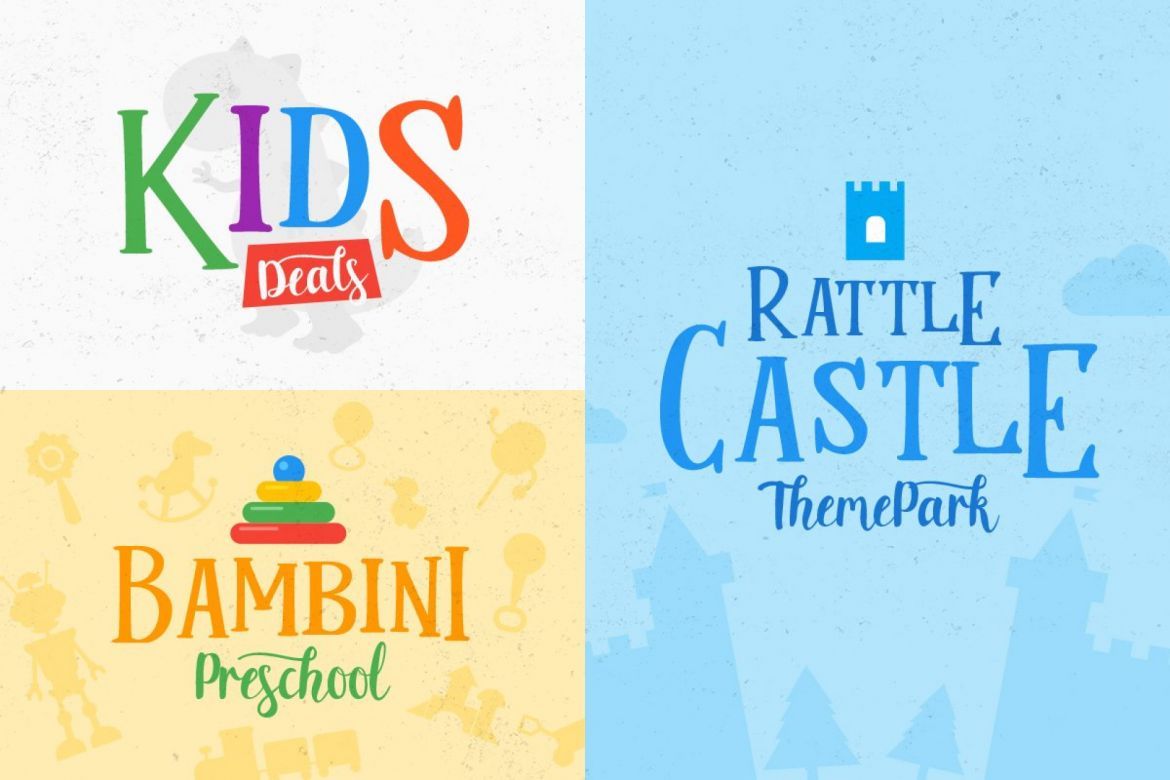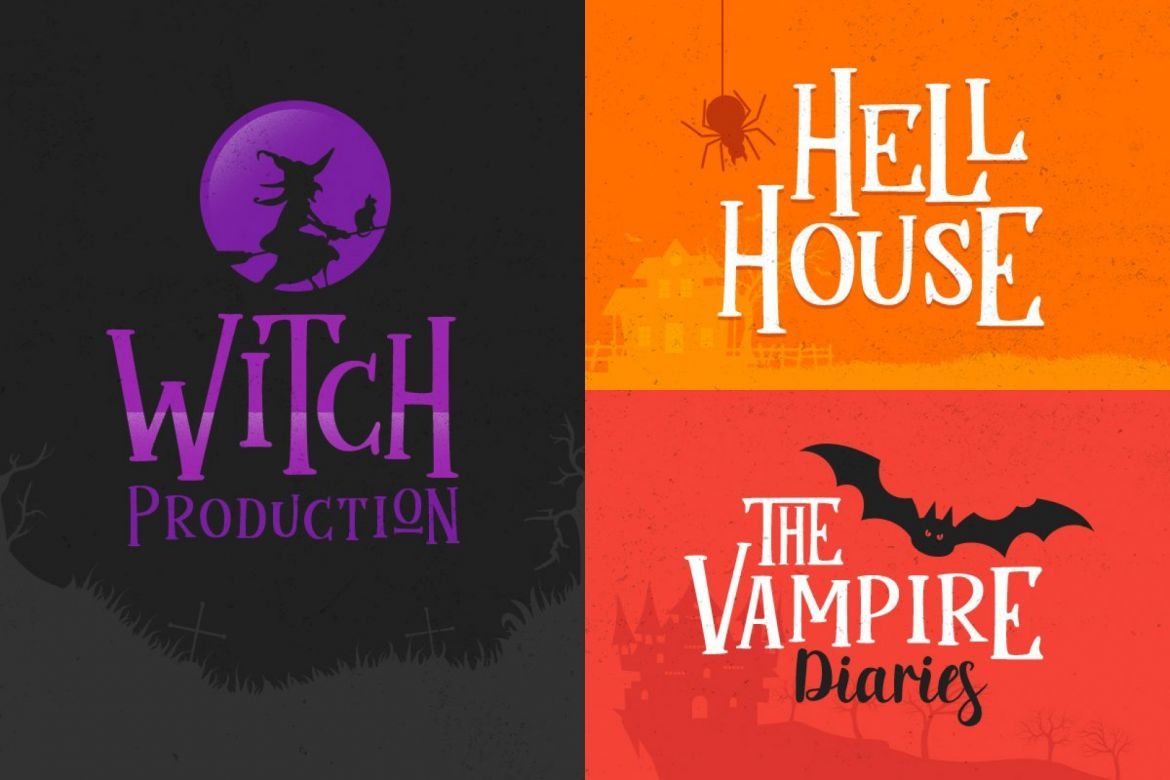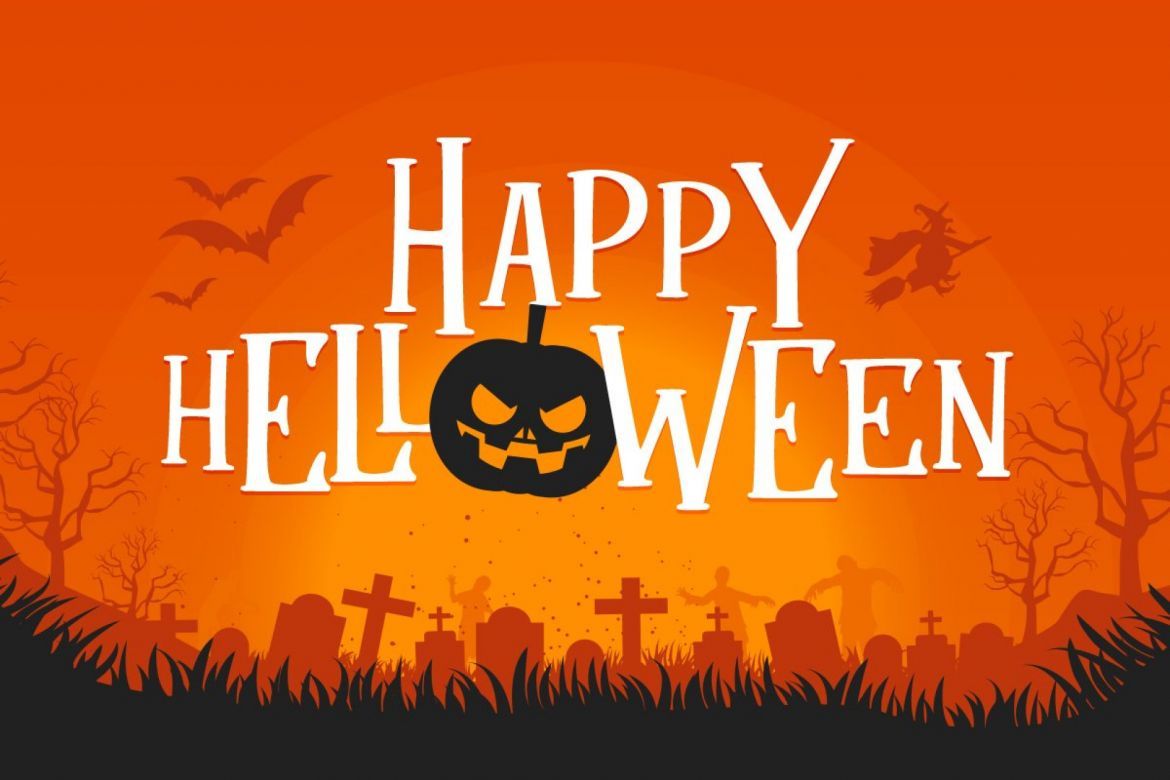
Mukadua Font Duo
Mukadua font duo
• it also has open type features such as style replacement and ligature!
• the main font is a type of serif font with a unique bouncing base line, including uppercase & lowercase characters, punctuation, numbers, and multilingual support.